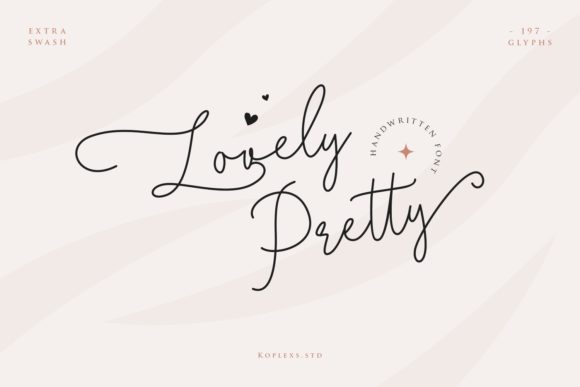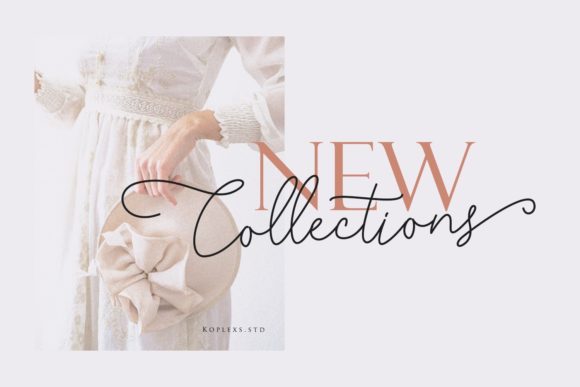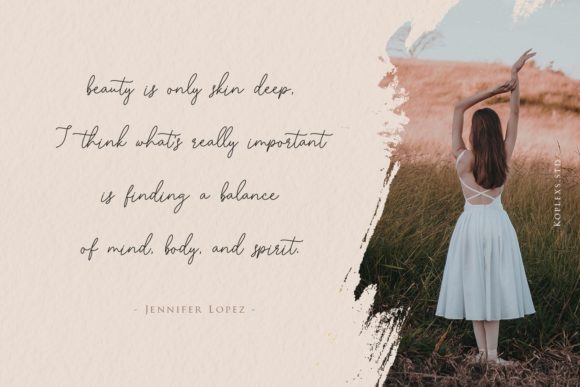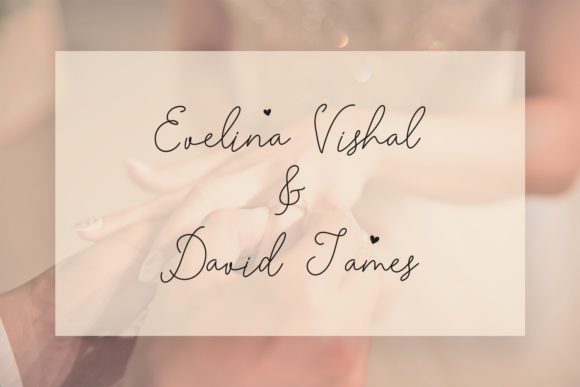
Lovely Pretty Font
About the Lovely Pretty Font
The Lovely Pretty Font is here to transform your projects with its distinctive character and style. Lovely Pretty is a sweet, whimsical and flowing script font. Featuring characters that dance along the baseline, this font will add a luxury spark to any design project that you wish to create! Lovely Pretty is PUA encoded which means you can access all of the glyphs and swashes with ease.
Lovely Pretty’s whimsical style is ideal for projects requiring a touch of elegance and playfulness, such as wedding invitations, logos for boutiques, or packaging for luxury goods. It excels in headlines, short quotes, and social media graphics where its flowing characters make a statement. However, its delicate nature makes it unsuitable for body text or UI elements; readability suffers in extended use.
Consider pairing Lovely Pretty with a clean sans-serif like Lato for a modern contrast, or a classic serif like Garamond for a more traditional feel. A simple geometric sans-serif could also provide a striking counterpoint, balancing the script’s fluidity.
The font’s overall personality is best described as elegant yet playful; sophisticated but approachable. Its inherent charm makes it a versatile choice for brands seeking to project a sense of luxury and whimsy.